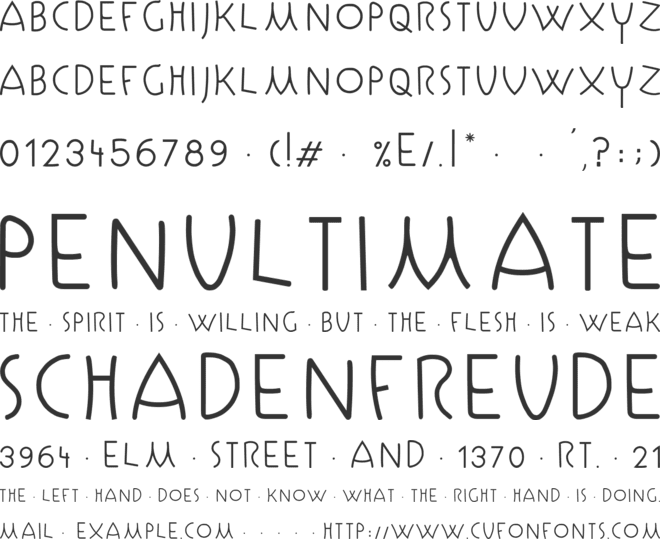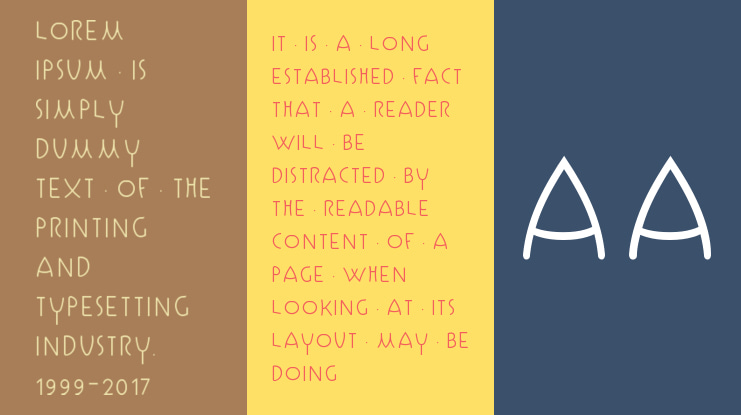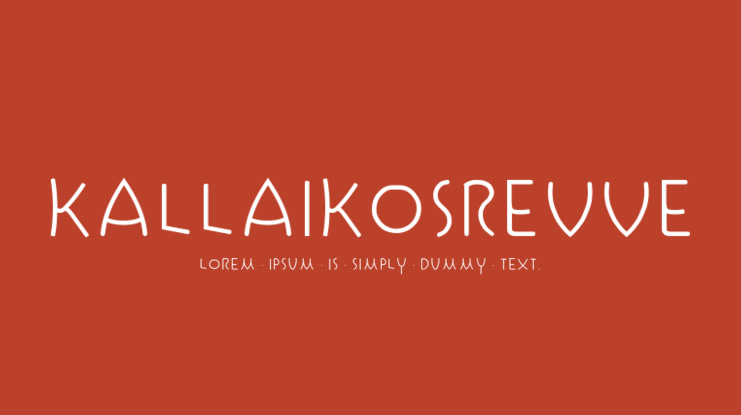
Kallaikosrevve Font
Galician letter, based on the authentic script used by the Celtic populations of Galicia. Inspired by the epigraphy that appears in the Galaicos Guerreiros of Santa Comba and San Paio de Meixedo (Portugal), adapted, drawn and constructed as a typography by Idoia de Luxán, based on the documentation provided by Paco Boluda.